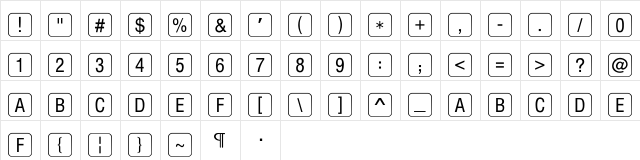
RRKeyLettersLimited-Normal Regular Font Preview
RRKeyLettersLimited-Normal Regular
Design Context for RRKeyLettersLimited-Normal Typeface
RRKeyLettersLimited-Normal takes a measured approach to typography — its balanced proportions and neutral character make it a reliable workhorse for both digital and print work.